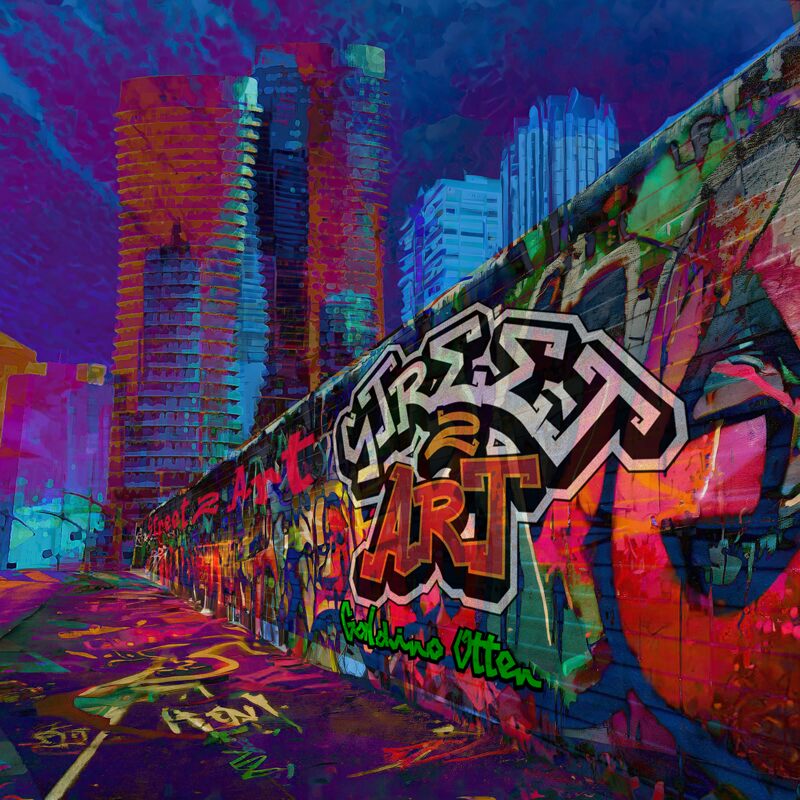
Street 2 Art
Street 2 Art by Galdino Otten Fonts embodies the rebellious spirit and vibrant energy of urban graffiti. With its bold strokes and artful spray-paint effects, it captures the raw, dynamic essence of street art that speaks directly to the soul. The font's handcrafted appearance brings a personal touch to each character, evoking the feeling of walking through a city alley adorned with expressive murals.
Ideal for projects that require a dash of edginess or authenticity, Street 2 Art shines in contexts that celebrate creativity and freedom. From apparel designs and event posters to album covers and digital media, this font injects life into any canvas with its unapologetic style and cultural resonance.